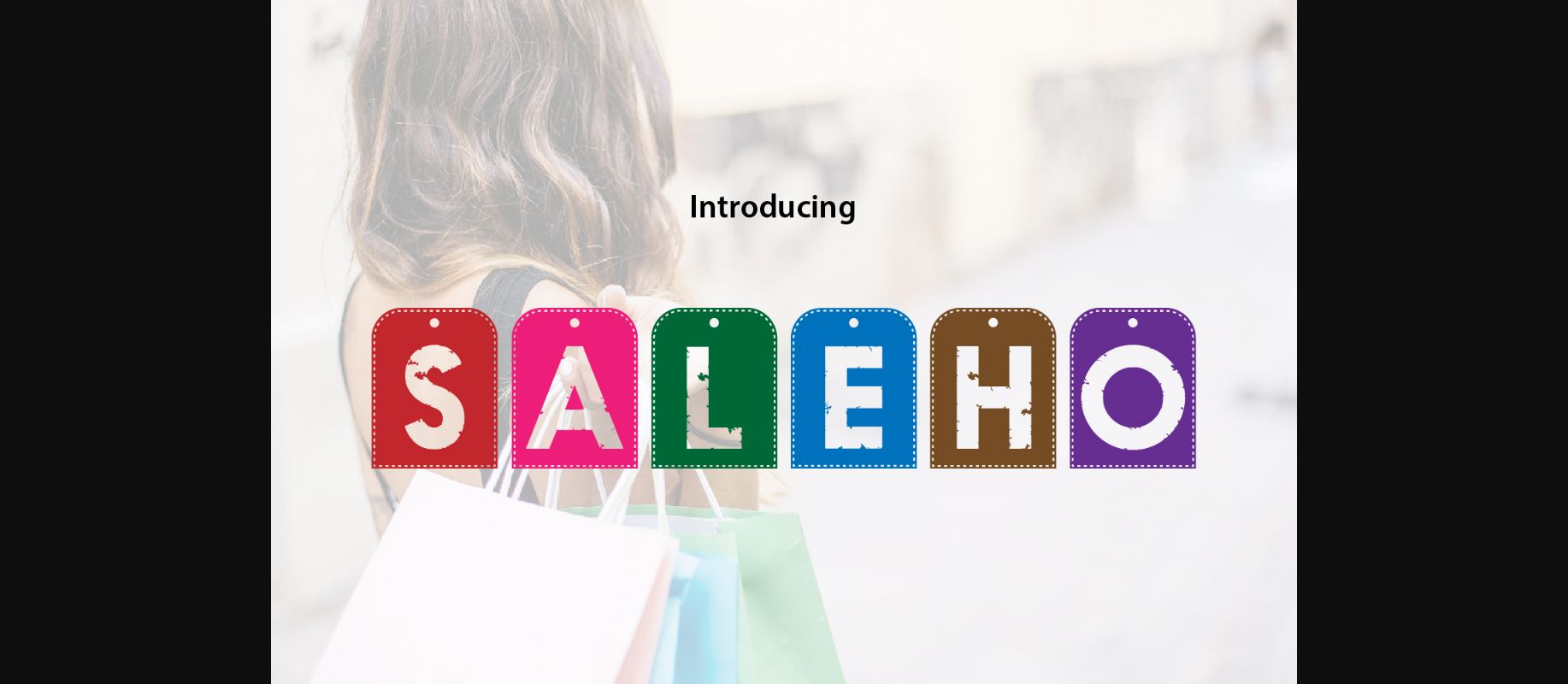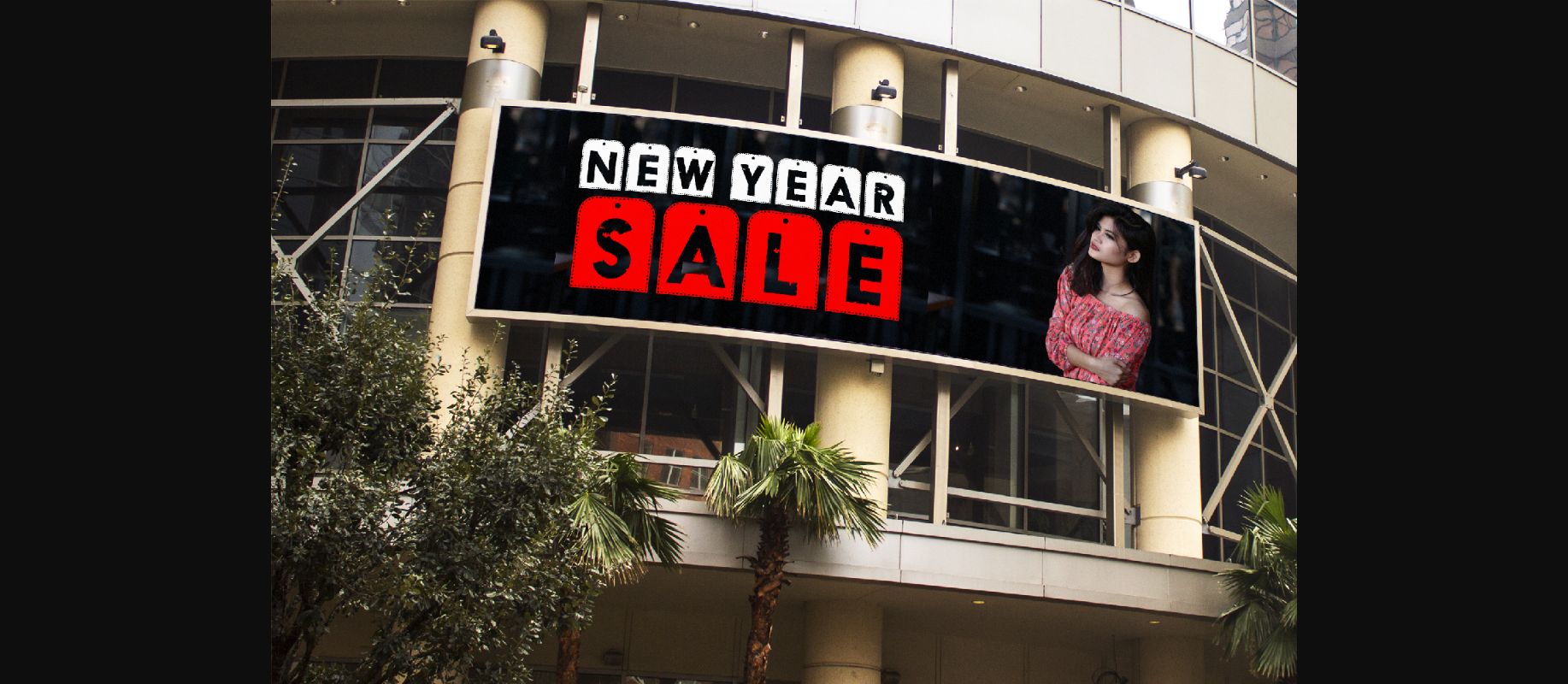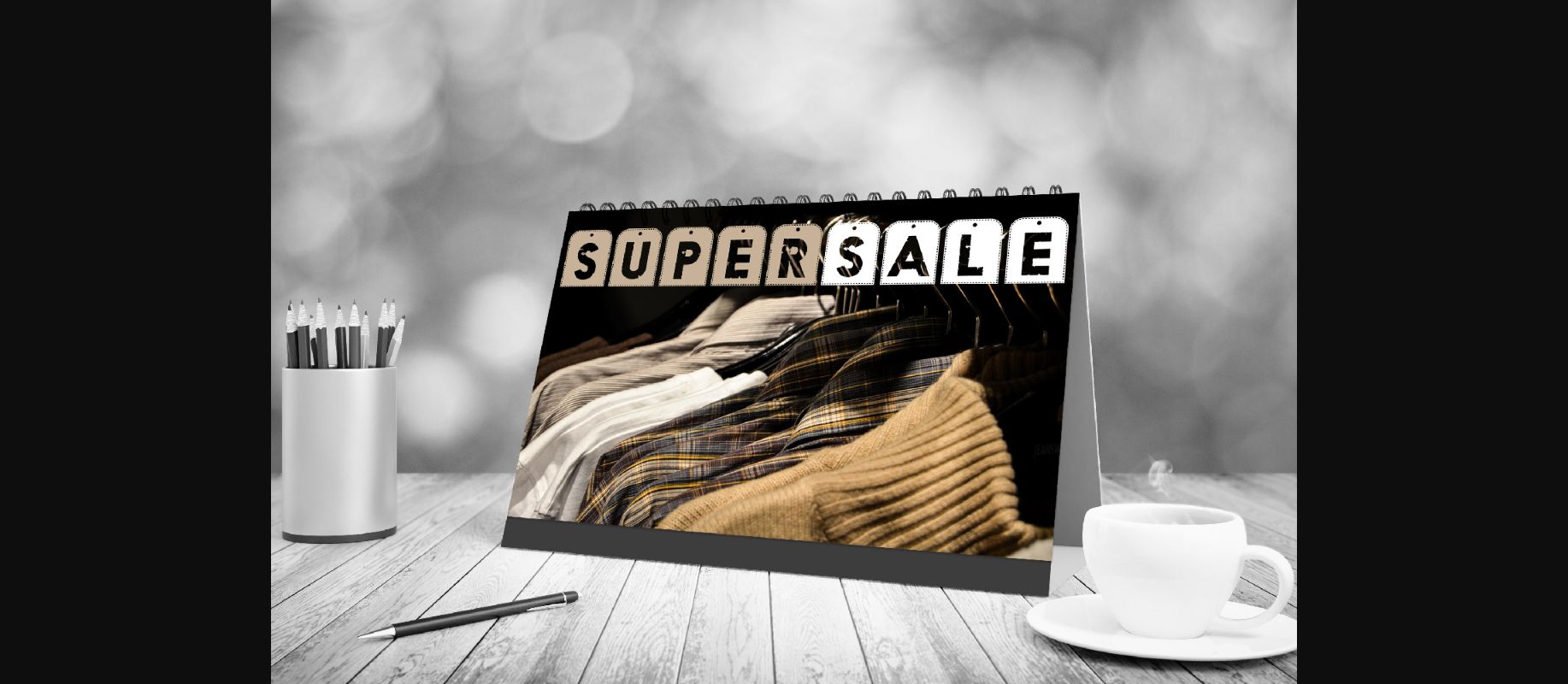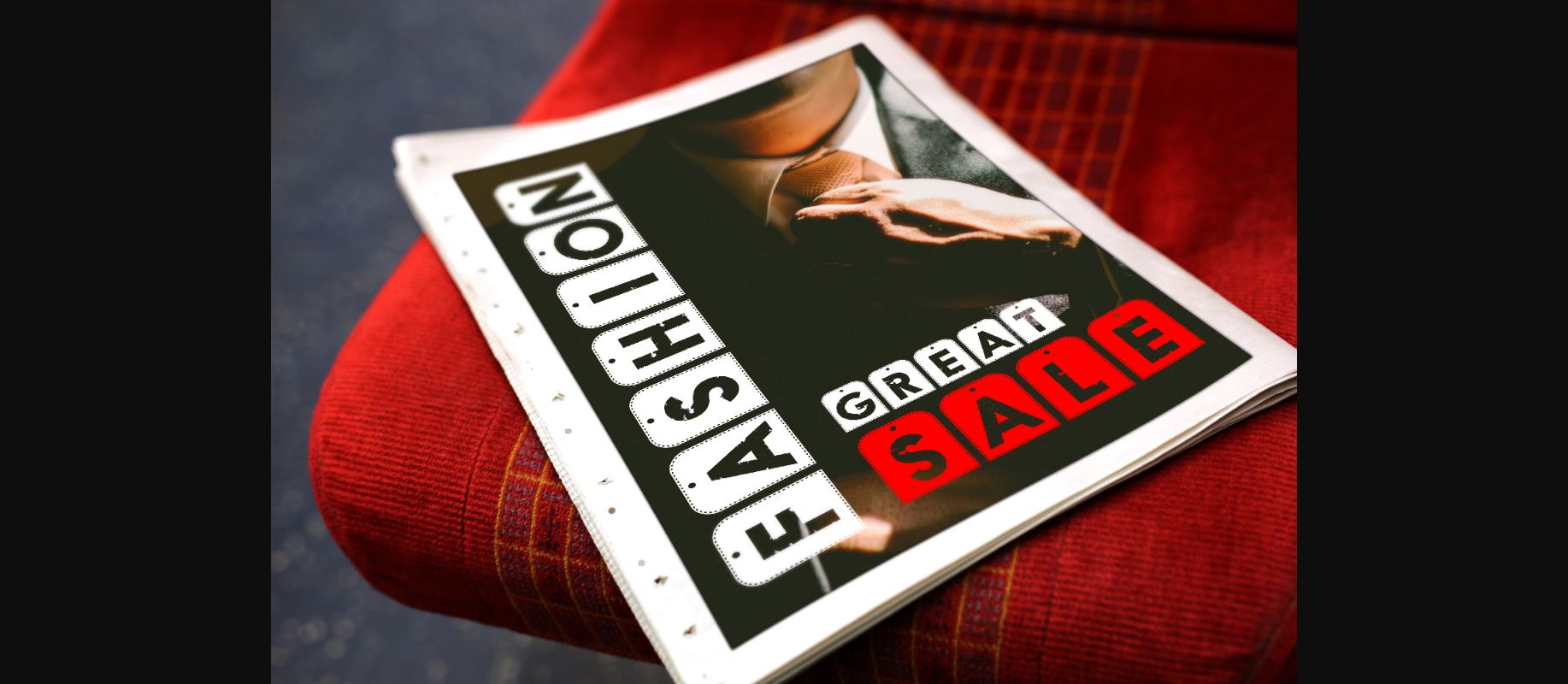
HomeDecorative FontsSaleho Font Decorative Fonts Saleho Font FacebookTwitterPinterestWhatsApp 1 of 6 ... Saleho Font Poster 2... Saleho Font Poster 3... Saleho Font Poster 4... Saleho Font Poster 5... Saleho Font Poster 6... About Saleho Font Saleho is a modern decorative font. It is perfect for logos, magazines, posters and social media posts. Get inspired by its unique look and feel. DOWNLOAD NOW People also explored Black Rollaway Font Wedding Valentine Font Forth Smith Font Gratteya Script Font Imperium Noifale Font Transmat North Pole Regular Font Enthra Centro Font 155 0 TagsSalehoSaleho Font Previous articleBlackboard School FontNext articleLove Struck Font LEAVE A REPLY Cancel reply Comment: Please enter your comment! Name:* Please enter your name here Email:* You have entered an incorrect email address! Please enter your email address here Website: Save my name, email, and website in this browser for the next time I comment. Personal Use Free Austins Personal Use Free Read more about this font Lumber Personal Use Free Read more about this font Motherblood Personal Use Free Read more about this font Concre Personal Use Free Read more about this font BLOG To increase your work productivity, choose the most readable fonts. In today's fast-paced work environment, where digital communication and information consumption are integral to our daily routines, the choice of fonts can significantly impact... Free Fonts Risk: Why Free Fonts Can Be Dangerous for Designers Exploring Font Trends Best Fonts for T-Shirt Design – Top 2025 Picks